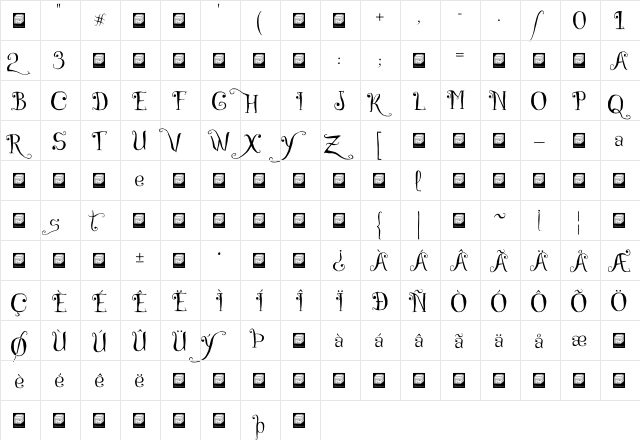
CZECH tales Demo Font Preview
CZECH tales Demo
| Foundry | Pisto Casero |
| Designer | Gilberto Moya |
Design Context for CZECH tales Typeface
CZECH tales is a composed and adaptable typeface that performs quietly and consistently across a wide range of design contexts.